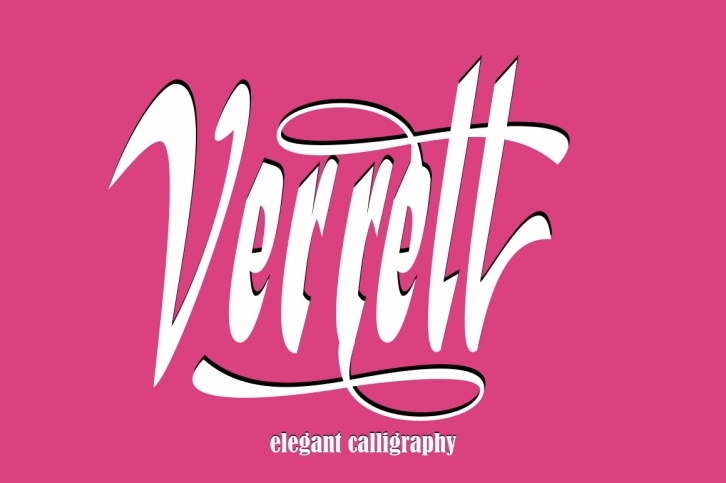
Verrell Script is a great font that was designed by Bot kerling. Imagine the amount of combinations you can create using this font! The archive is 18.68 MB and it was released on November 15, 2019. Verrell Script looks beautiful on wedding invitations, greeting cards, logos, posters, labels, t-shirt designs, logos, business cards and is perfect for use in ink or watercolor works, fashion, magazines, packaging and food menus, children's books and more!